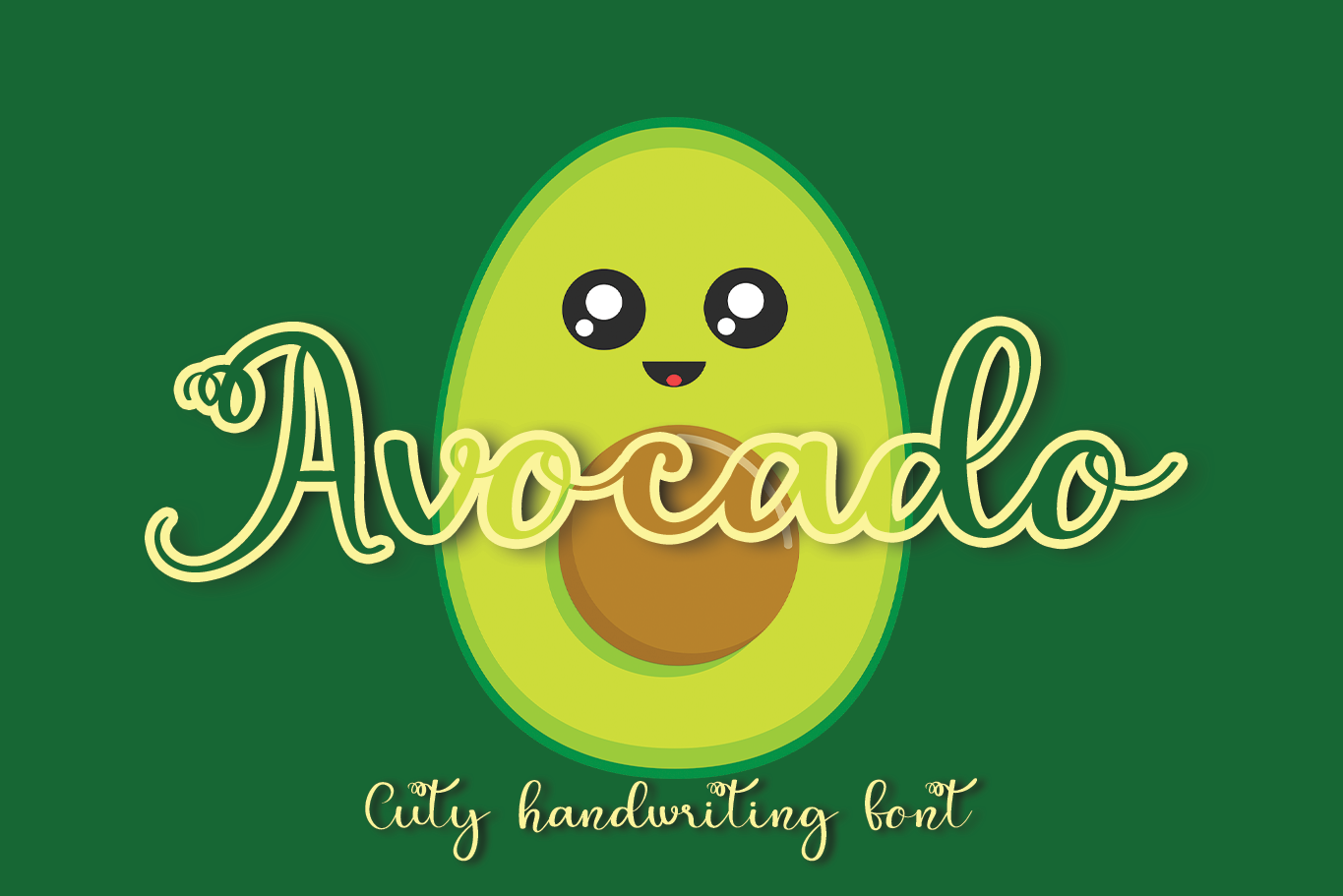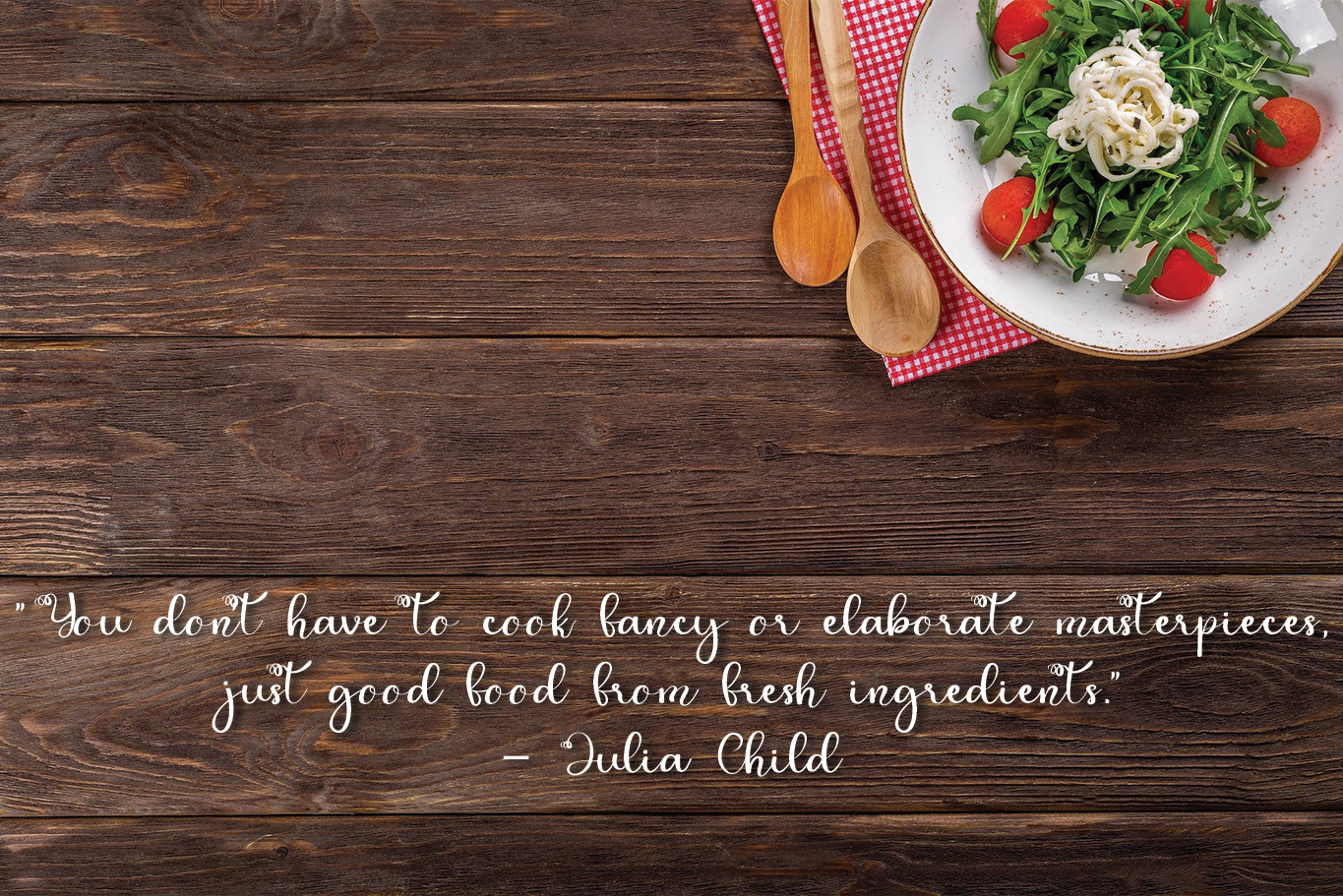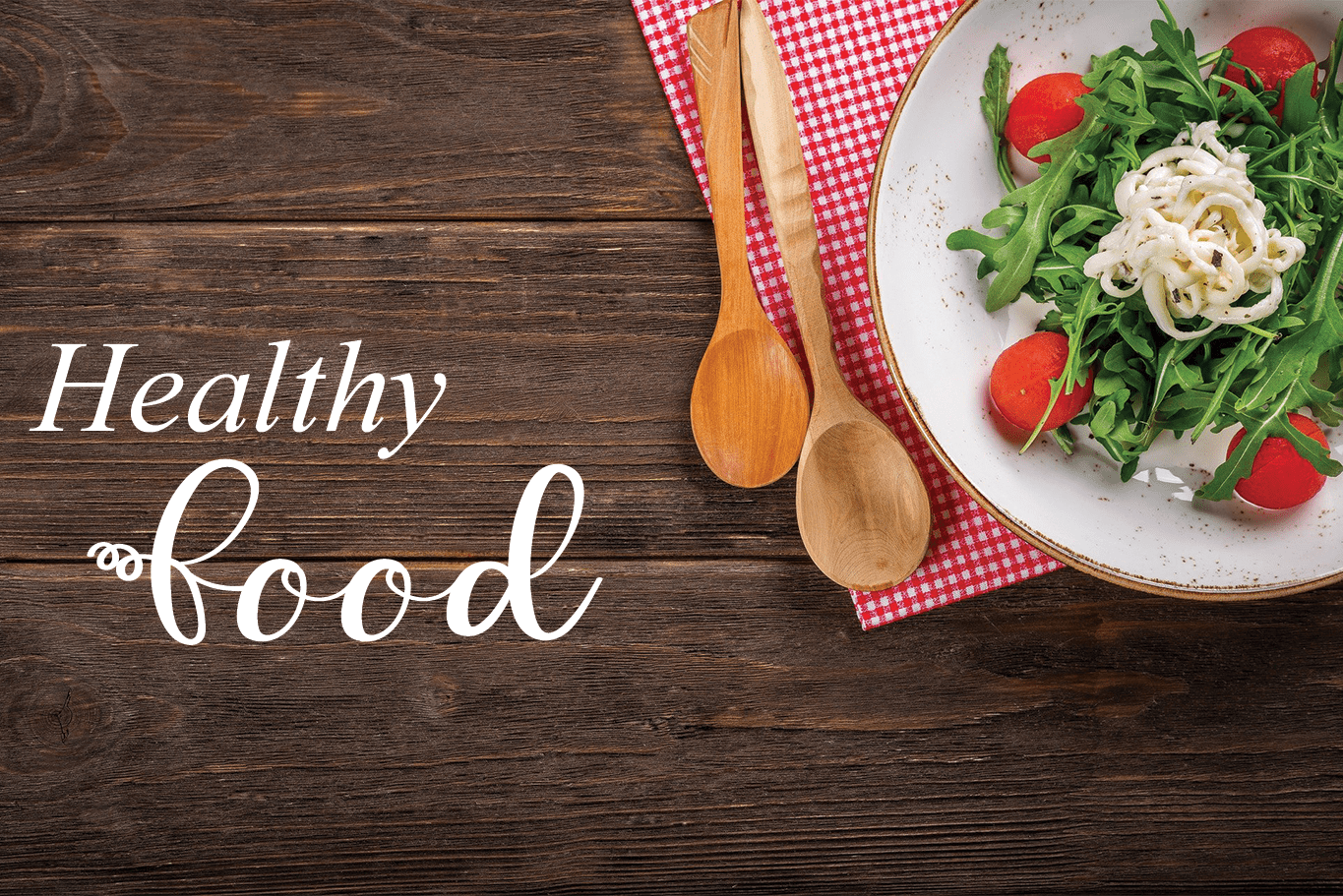
Avocado Font
Avocado Script Font
This is a chic, modern script font. This gentle font will look gorgeous on a variety of design ideas. It will add a joyful and romantic touch to each of your projects!